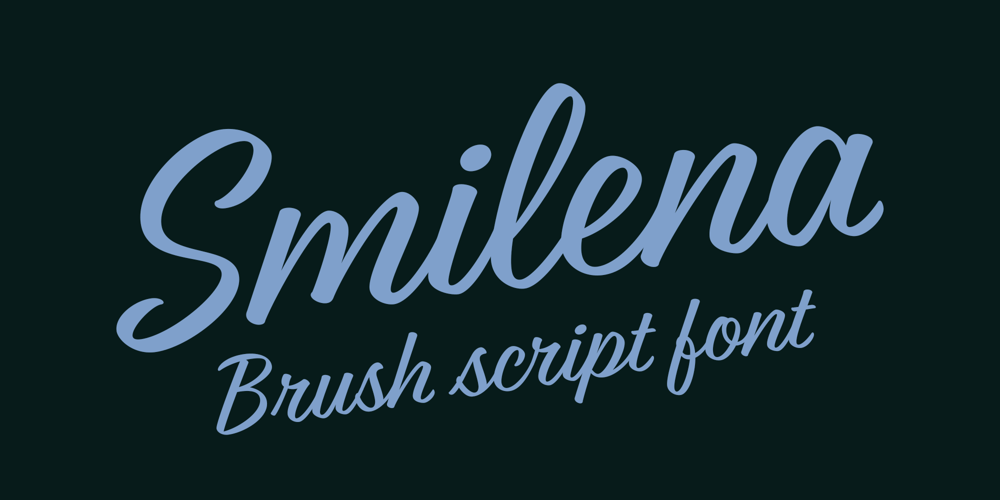
Smilena Font Family was designed by Mika Melvas and published by Melvastype. Smilena contains 1 styles and family package options. Smilena is a stunning brush script font that has a modern touch. It can be used in various design projects, including package design. Smilena offers alternate characters, such as initial and final forms for lowercase letters, as well as swash characters. These features can be conveniently utilized in design software that supports Opentype capabilities.